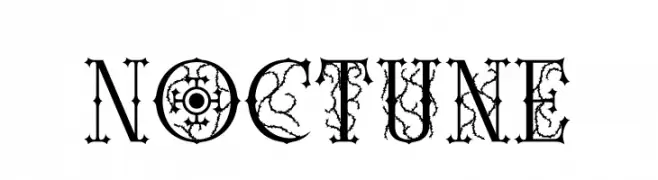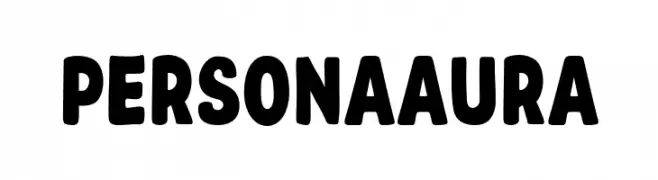
( Fonts by PutraCetol Studio )
A playful, dinosaur-themed decorative font with bold, rounded characters and integrated footprints.
( Fonts by PutraCetol Studio )
A playful, dinosaur-themed decorative font with bold, rounded characters.
( Fonts by PutraCetol Studio )
A playful, monster-themed font with bold, rounded characters and quirky details.
( Fonts by Storytype Studio )
An ornate, gothic-style font with intricate thorn-like detailing.
( Fonts by PutraCetol Studio )
A bold, decorative font with diamond embellishments for a playful and luxurious look.
( Fonts by PutraCetol Studio )
A playful, unicorn-themed decorative font with bold, rounded characters.
( Fonts by PutraCetol Studio )
A bold, star-patterned decorative font with a playful and whimsical style.
( Fonts by PutraCetol Studio )
A whimsical font with tail-like flourishes on each character, adding a playful and magical touch.
( Fonts by MJType )
A bold, rounded font with a playful and friendly style.
( Fonts by PutraCetol Studio )
A playful, palm tree-topped decorative font with a tropical vibe.